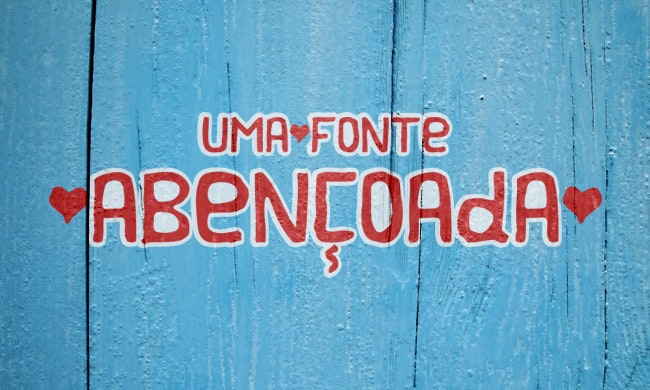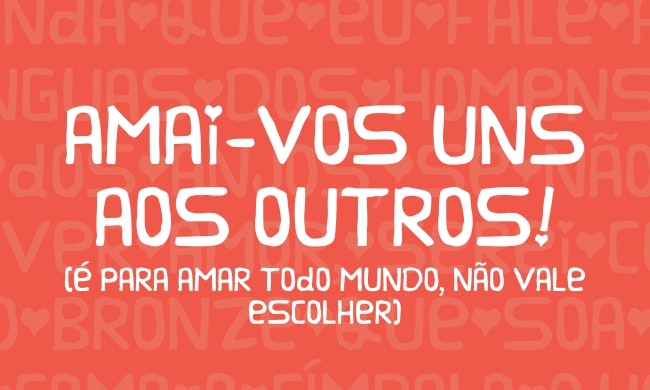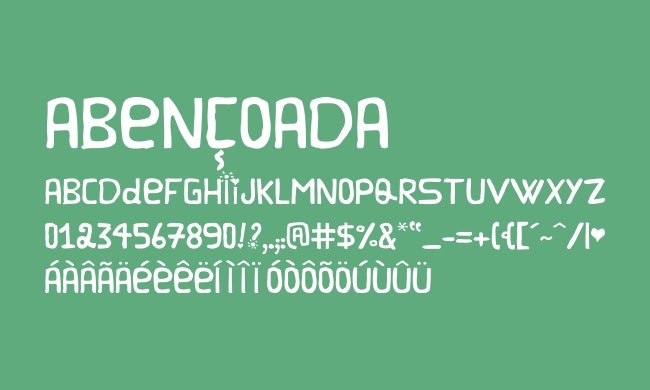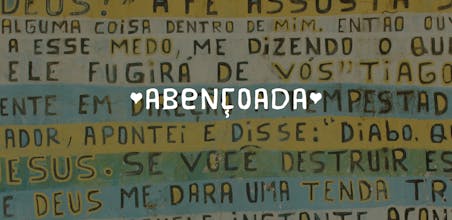
Abençoada typeface
A typeface made for charity
The development of the Abençoada typeface is part of the actions of preservation and registration of vernacular letterings in the south of Santa Catarina (Brazil) of the Pintores de Letras project. It is inspired by the letters that decorate and give life to the messages of love painted by Irmão Ramos.